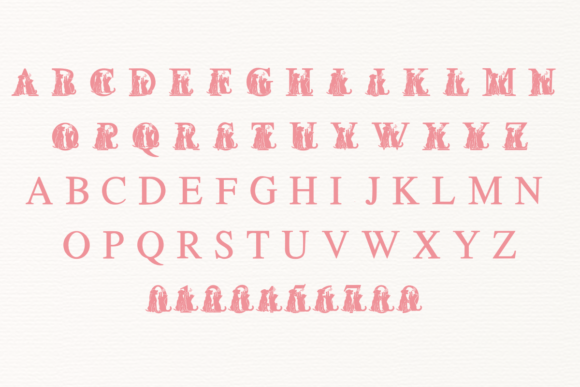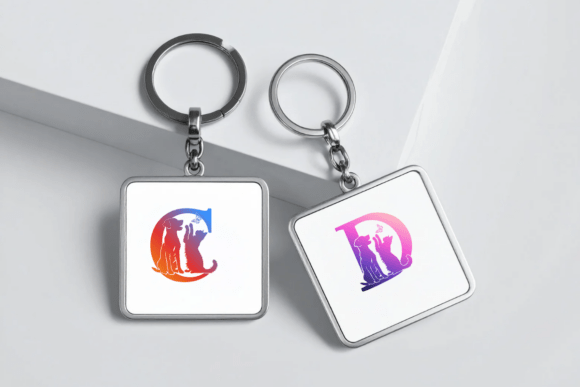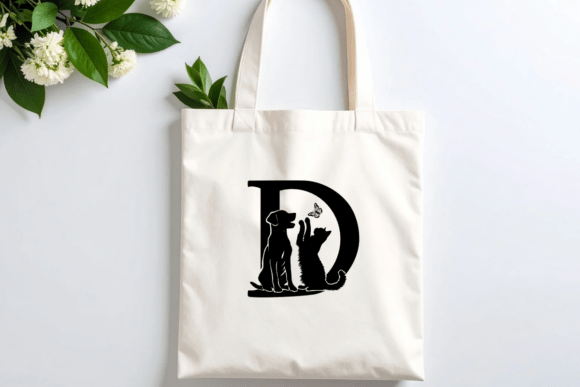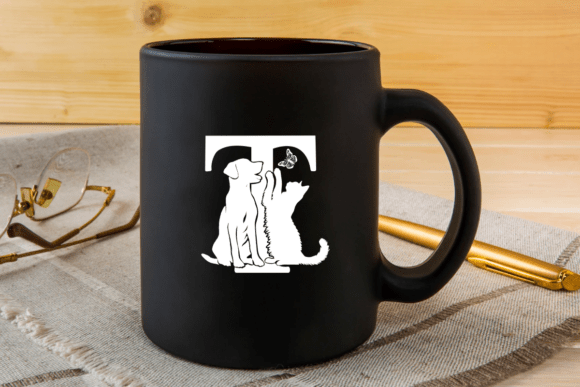
The Purr-fect Union of Design and Pets
As I sat at my desk, surrounded by scraps of paper and half-finished designs, I stumbled upon a moment of pure creative bliss. I was brainstorming ideas for a pet-themed project when my eyes landed on a unique font that made my heart skip a beat – the Cat and Dog Font. This enchanting decorative font seamlessly weaves silhouettes of cats and dogs into the structure of its capital letters, creating a visual masterpiece that’s both sophisticated and whimsical.
The Cat and Dog Font is a treasure trove for designers seeking to add a touch of personality to their projects. Its intricate, hand-crafted design elements make it an ideal choice for branding, invitations, and other decorative display uses. By incorporating this font into their designs, creatives can evoke a sense of gentle, natural elegance that’s sure to captivate pet lovers and animal enthusiasts alike.
Cat and Dog Font Key Features
- Unique Characteristics: The Cat and Dog Font features a unique blend of modern and playful design elements, with a focus on legibility and readability.
Designer Review: Cat and Dog Font
Overall, I think the Cat and Dog Font has a playful and whimsical feel that could work well in the right context. ✨ The use of bold lines and rounded edges creates a friendly and approachable vibe, perfect for children’s books or pet-themed projects. ✨ The font also includes a wide range of characters, including punctuation and special symbols.
- Playful and whimsical feel
- Bold lines and rounded edges create a friendly vibe
- Wide range of characters, including punctuation and special symbols
However, there are a few limitations to consider. ⚠️ The font may not be suitable for formal or professional projects, as it can come across as a bit childish. ⚠️ Additionally, some of the character sets may not be perfectly aligned, which can affect the overall quality of the text.
- May not be suitable for formal or professional projects
- Some character sets may not be perfectly aligned
Overall, I think the Cat and Dog Font is a fun and creative choice for the right project. While it may have some limitations, it’s a great option for anyone looking to add a playful touch to their design.
The “Cat and Dog Font”
Alternatives to Cat and Dog Font
Great Vibes Font is a beautiful, handwritten script font perfect for creative and artistic designs. It’s ideal for use in advertising, invitations, and other promotional materials where a touch of elegance is required.
Compared to Cat and Dog Font, Great Vibes Font has a more refined and sophisticated look, making it suitable for high-end designs. However, Cat and Dog Font has a more playful and quirky feel, making it perfect for casual and informal designs.
Dancing Script Font is a dynamic, cursive script font ideal for use in designs that require a sense of movement and energy. It’s perfect for use in posters, flyers, and other promotional materials where a bold and attention-grabbing look is required.
Compared to Cat and Dog Font, Dancing Script Font has a more dramatic and dynamic feel, making it suitable for designs that require a lot of energy and excitement. However, Cat and Dog Font has a more subtle and understated look, making it perfect for designs where a more laid-back feel is required.